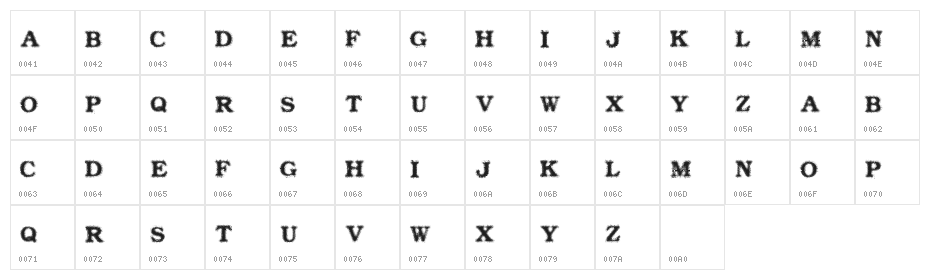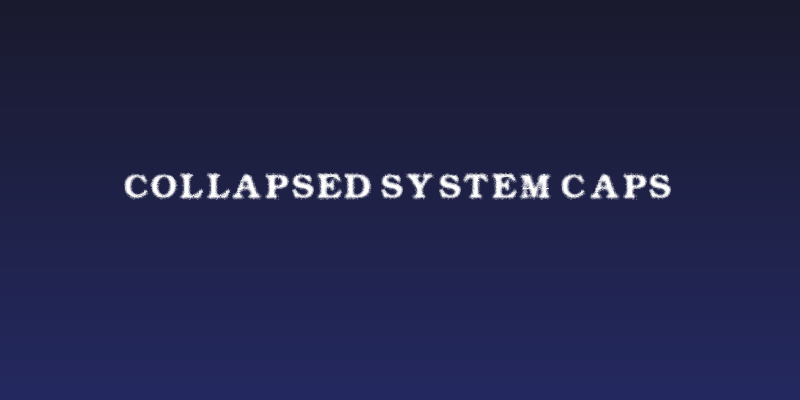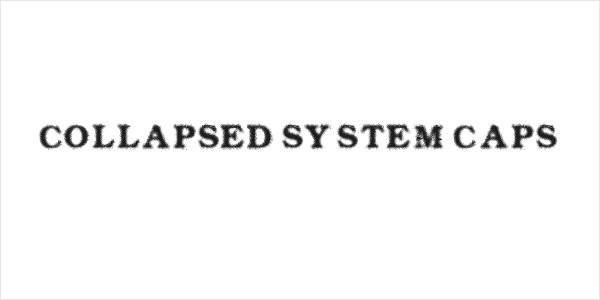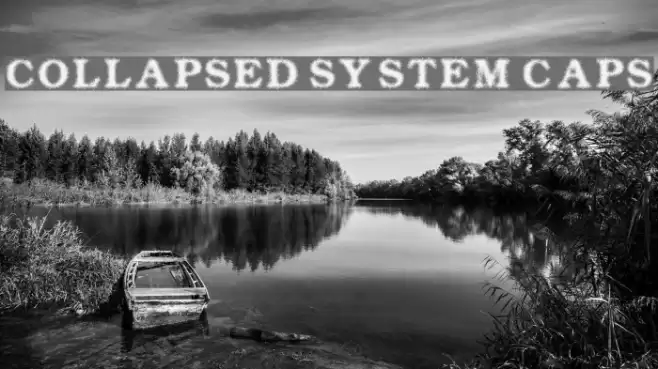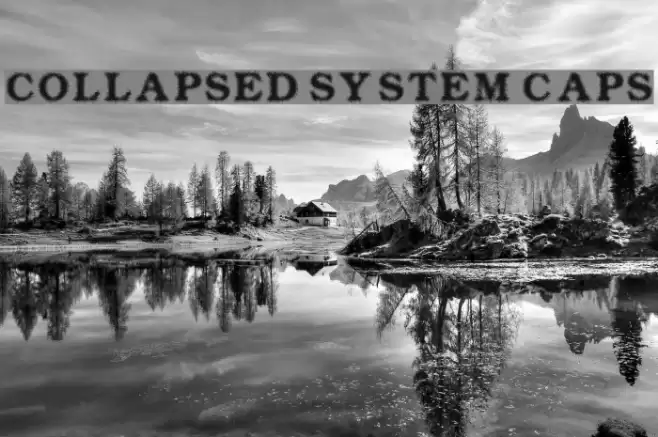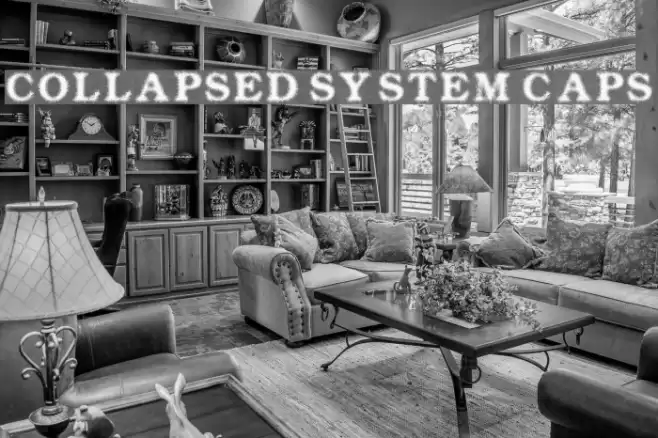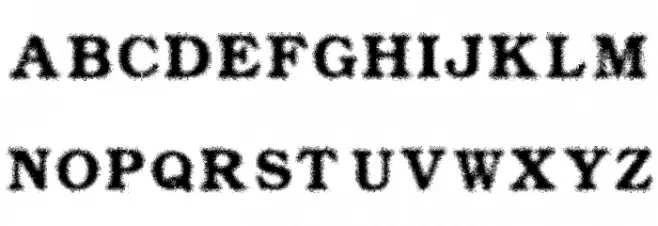
Collapsed System CAPS Font
Collapsed System CAPS Description
This font features a bold, distressed style with a textured appearance that gives it a rugged and vintage feel. The characters are uppercase, with a consistent height and width, creating a uniform look across the alphabet. The edges of each letter are rough and irregular, contributing to its unique, worn-out aesthetic. This font is ideal for projects that require a strong, impactful visual presence, such as posters, logos, or branding materials that aim to convey a sense of history or authenticity.
| Overall Style | Vintage |
| Proposed Projects | Ideal for posters, logos, branding, and any design requiring a vintage or rugged aesthetic. |